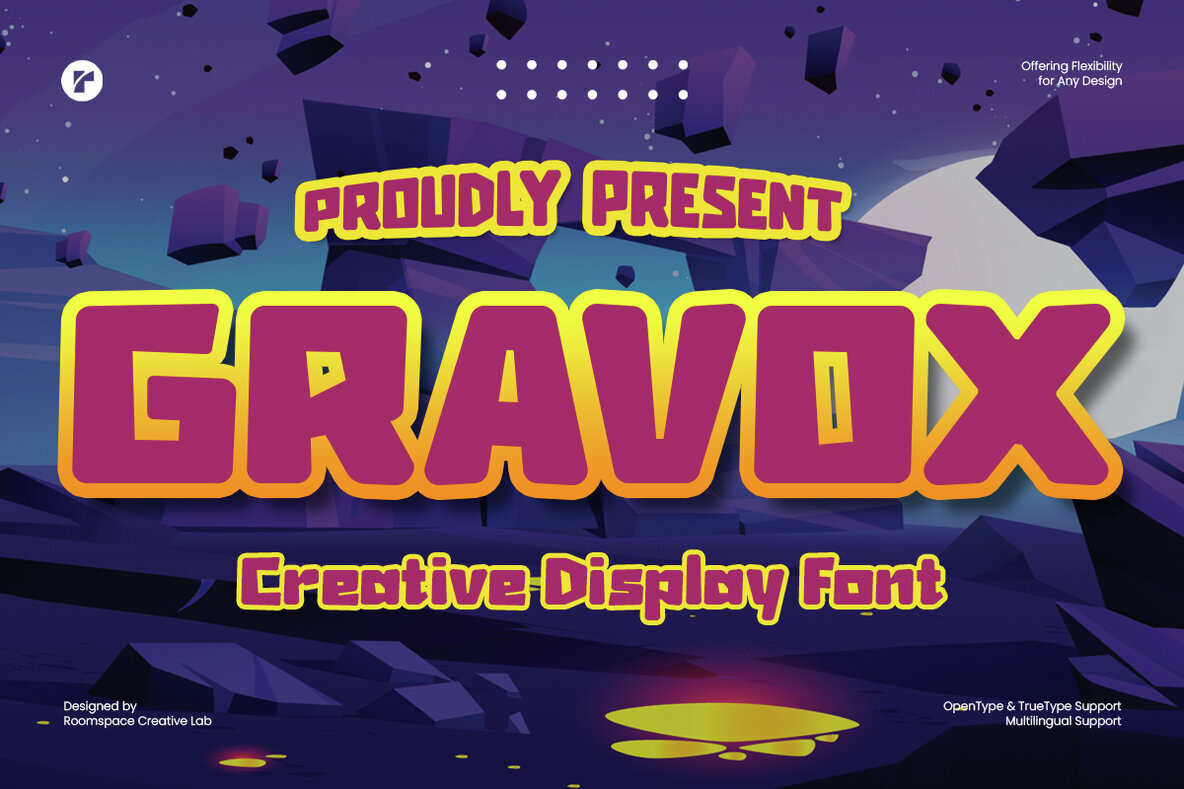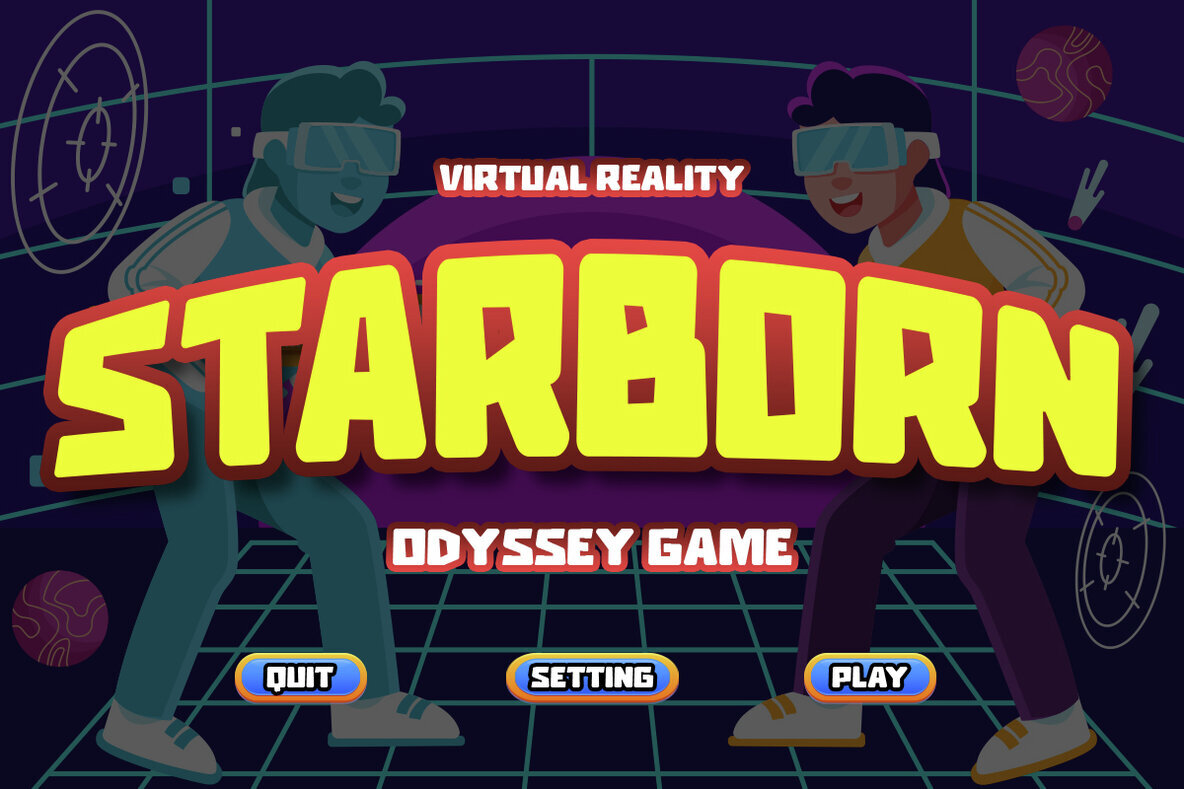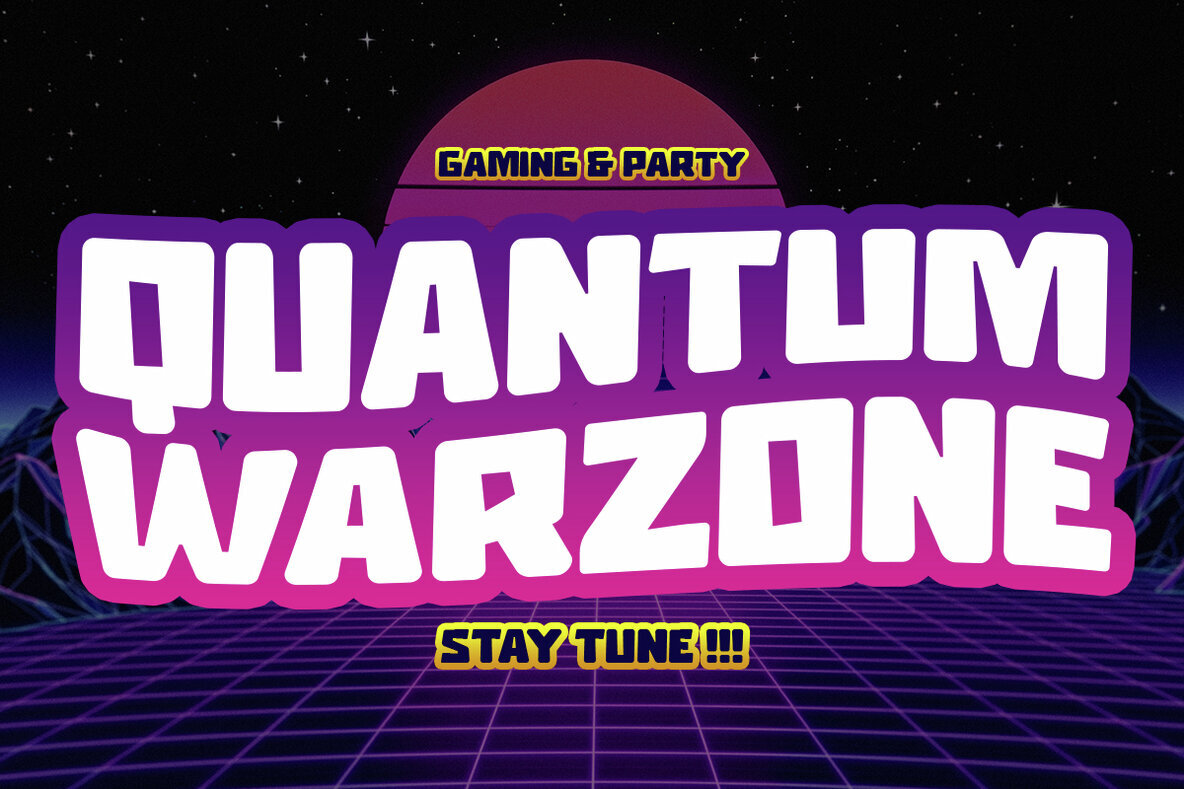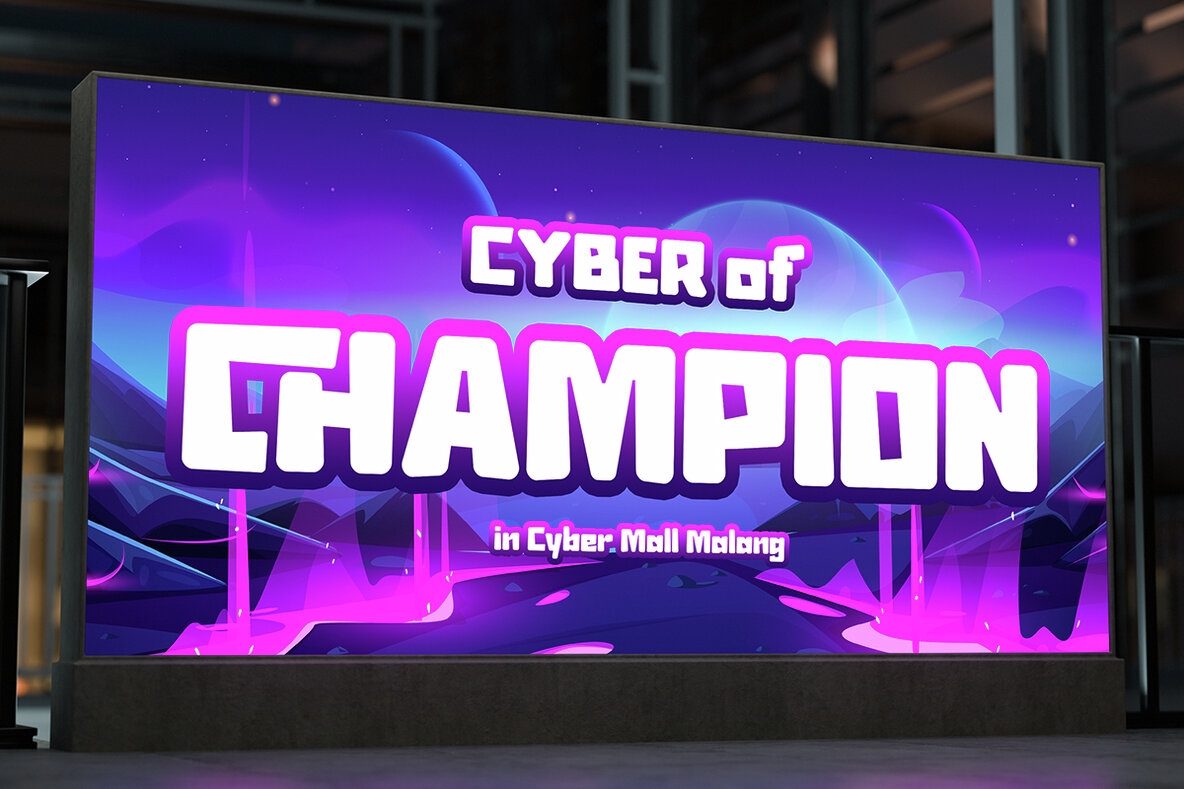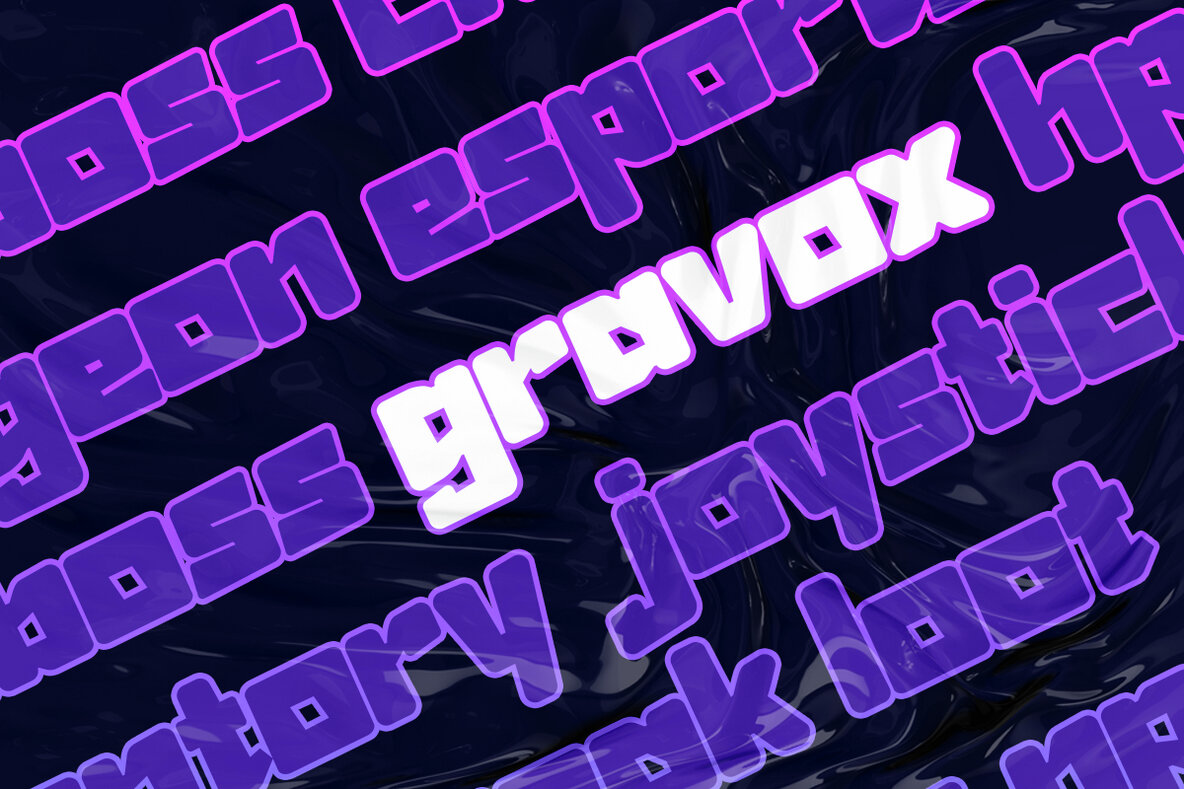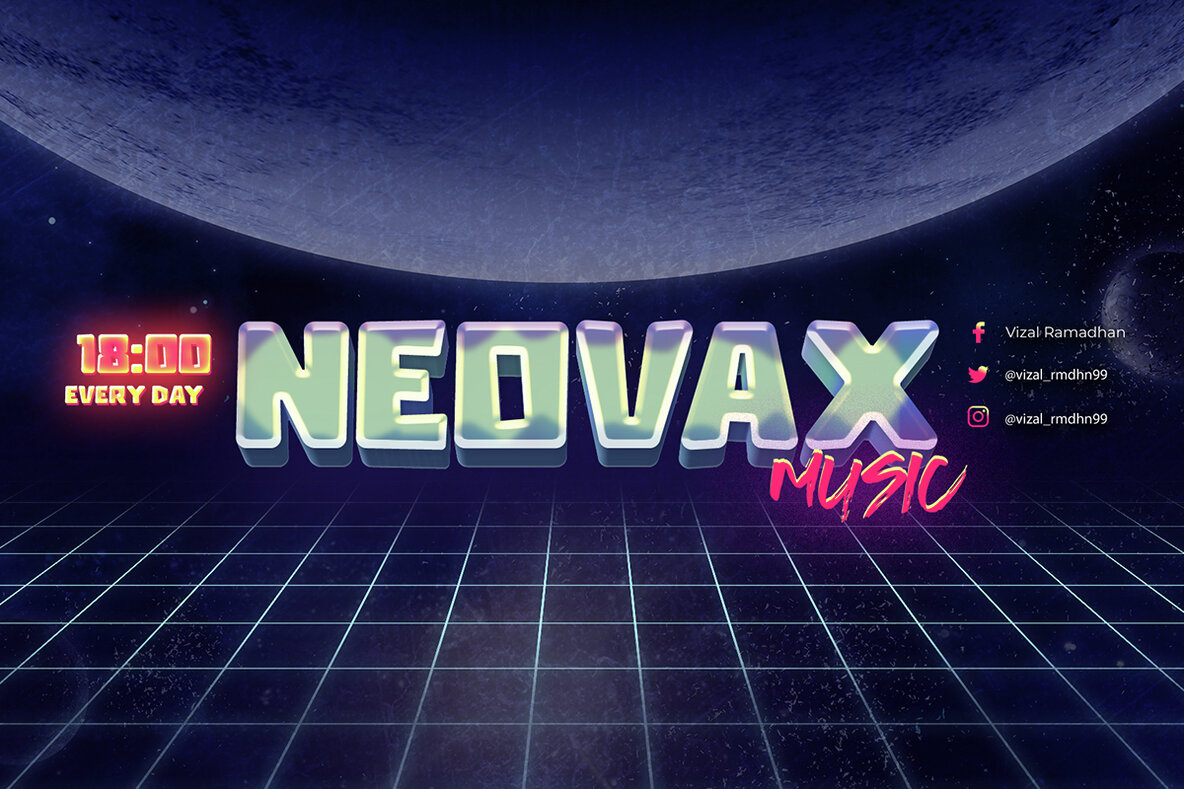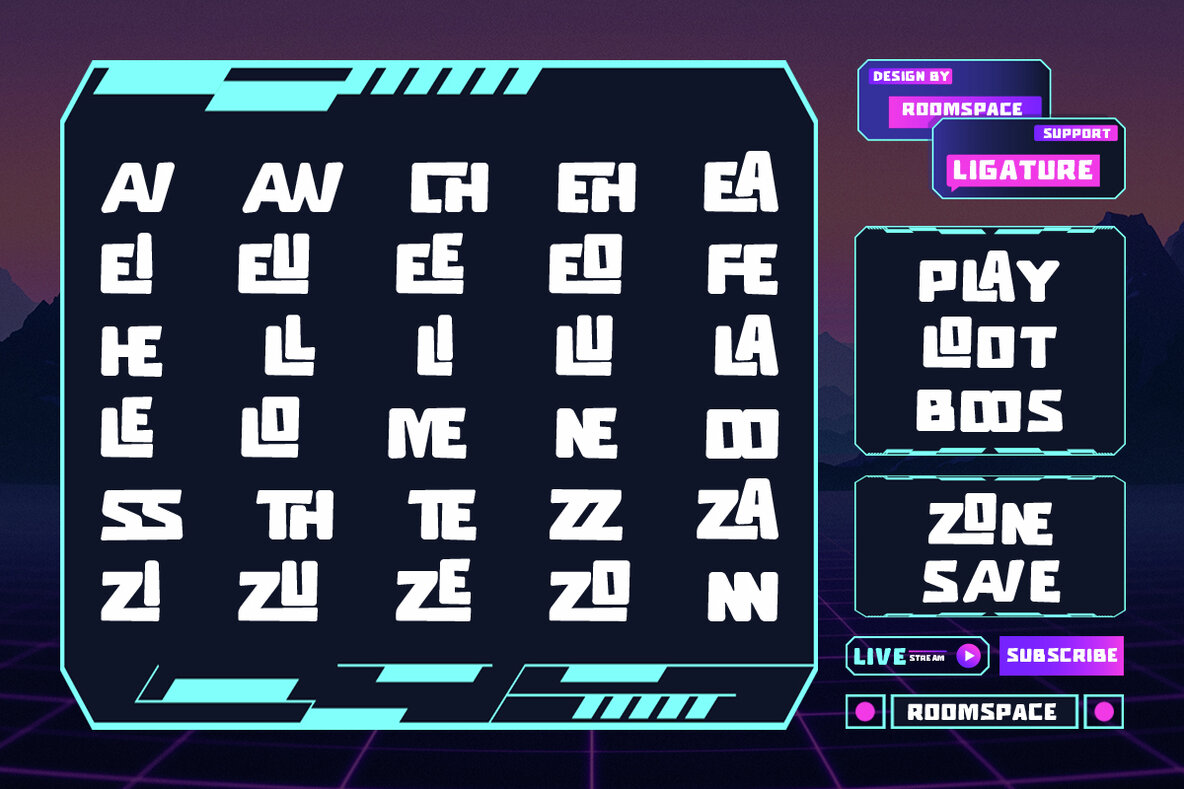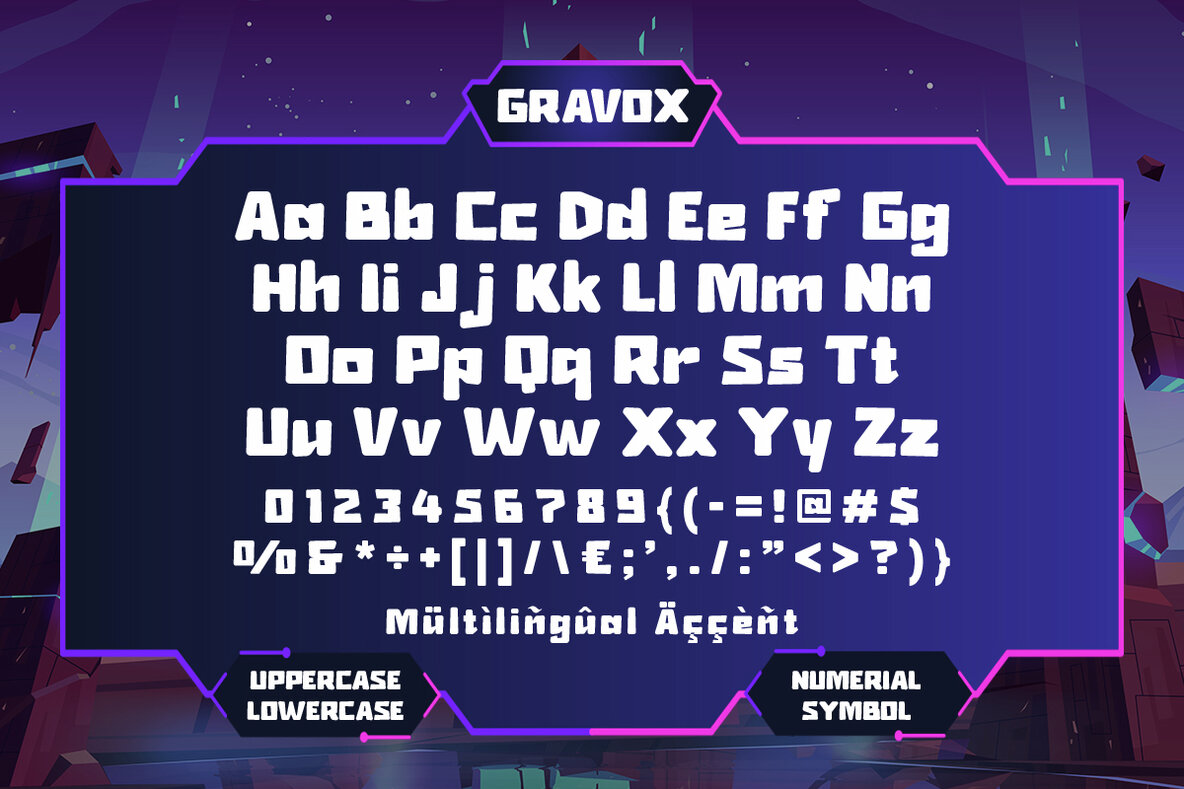
Gravox Font
Gravox Regular
Gravox is the epitome of gaming typography, offering a bold and dynamic font ideal for gamers, developers, and creatives. Drawing inspiration from classic arcade aesthetics, Nintendo influences, and modern futuristic displays, Gravox is a versatile typeface perfect for game titles, posters, UI design, and branding projects. Its sleek sans-serif style and variable features combine playful yet sharp letterforms, delivering a high-energy digital look to any project.
Designed for a range of applications, Gravox ensures fun, readability, and impact, whether you're creating designs for children's games, retro-themed visuals, or high-tech branding. Feature-rich, it includes regular, ligatures, uppercase and lowercase letters, numbers, punctuation, and multilingual support. Compatible with both PC and Mac, Gravox promises simple installation and seamless usability across platforms.